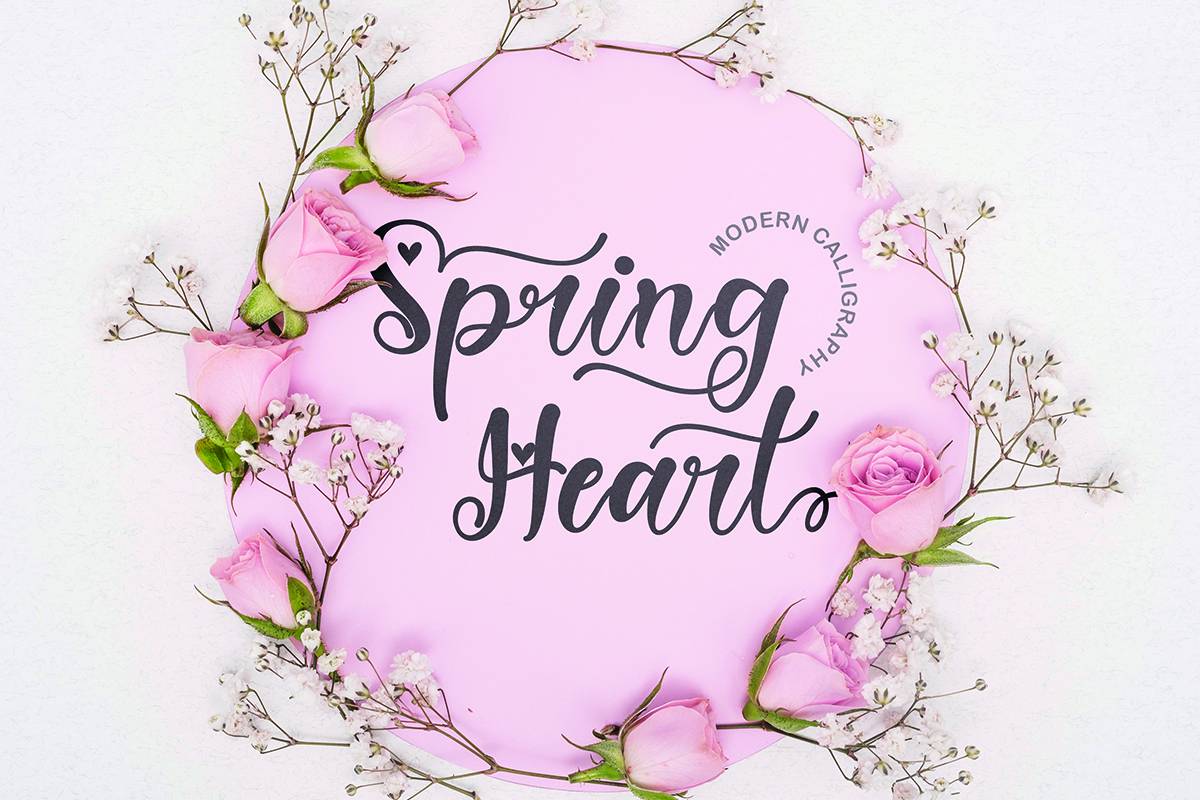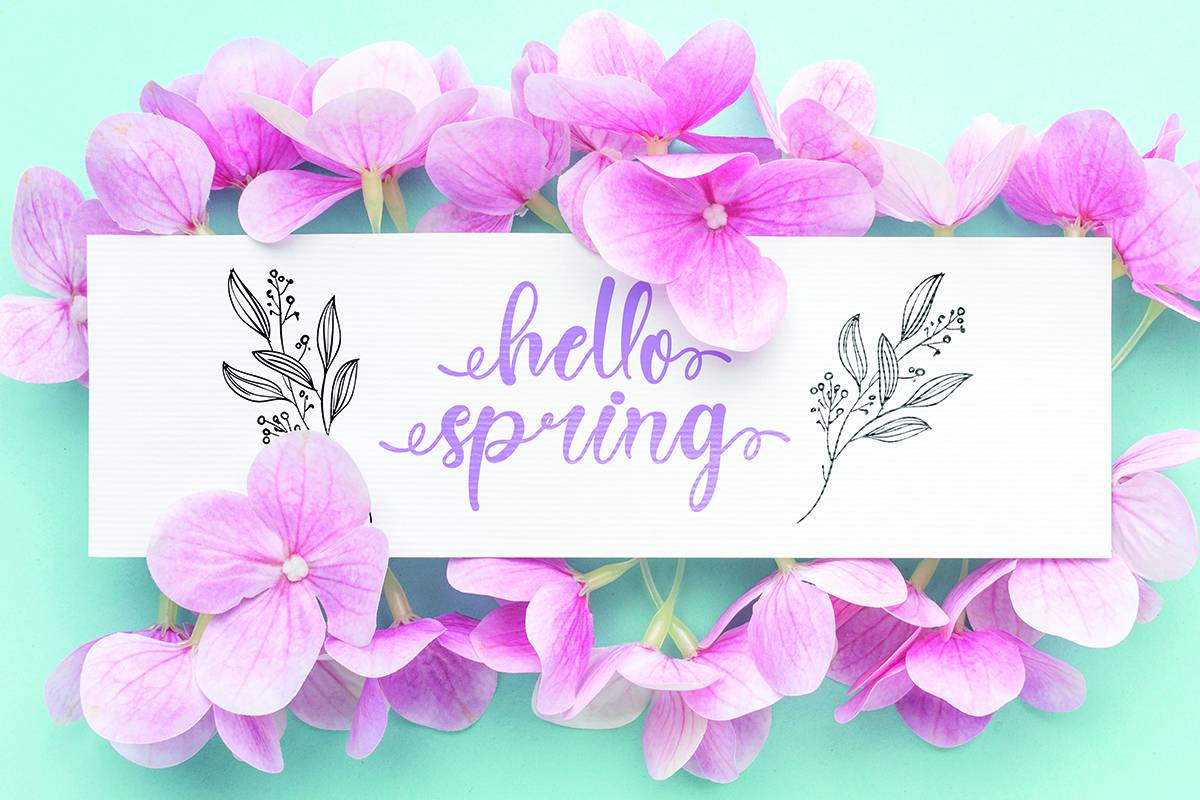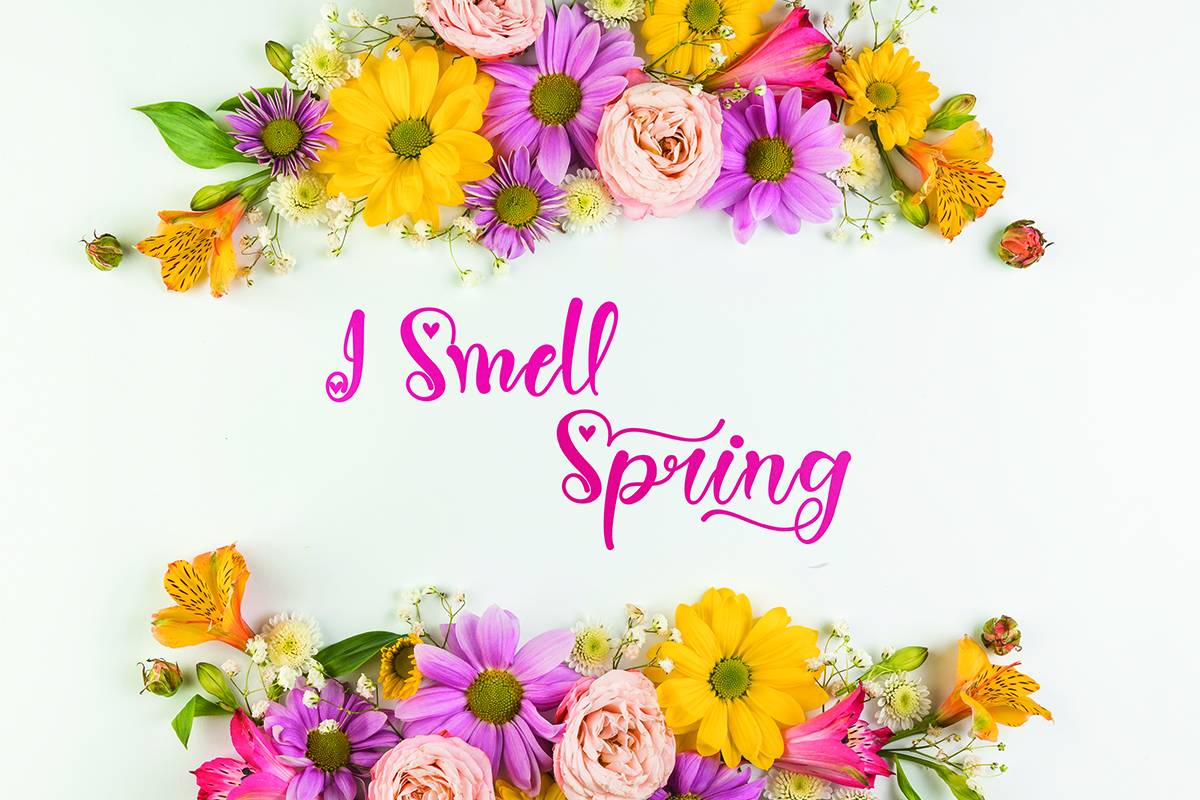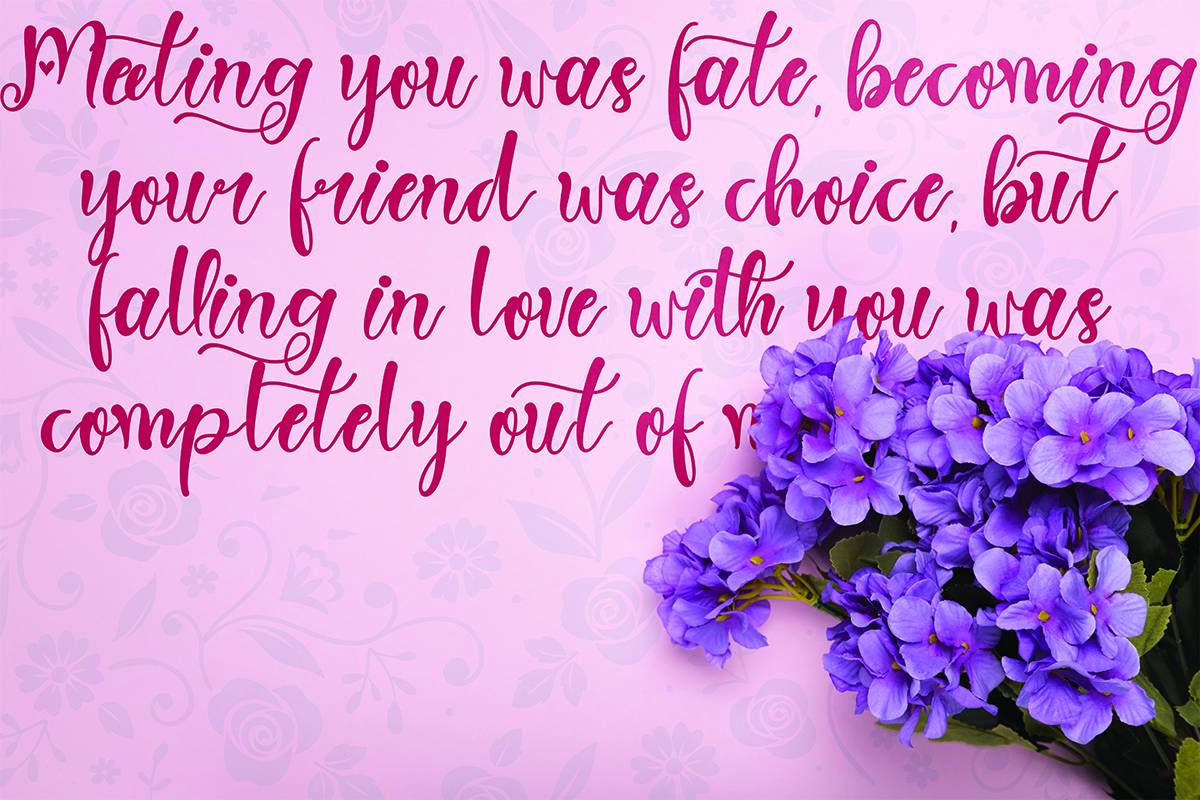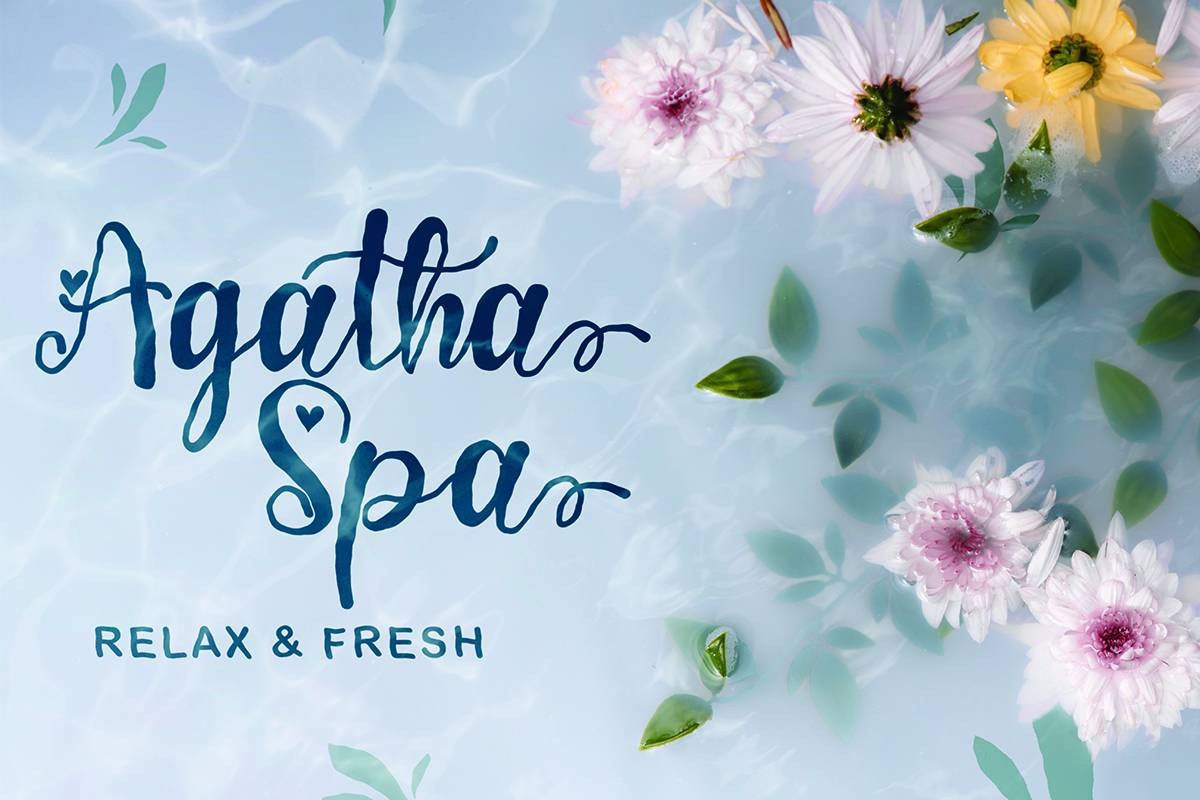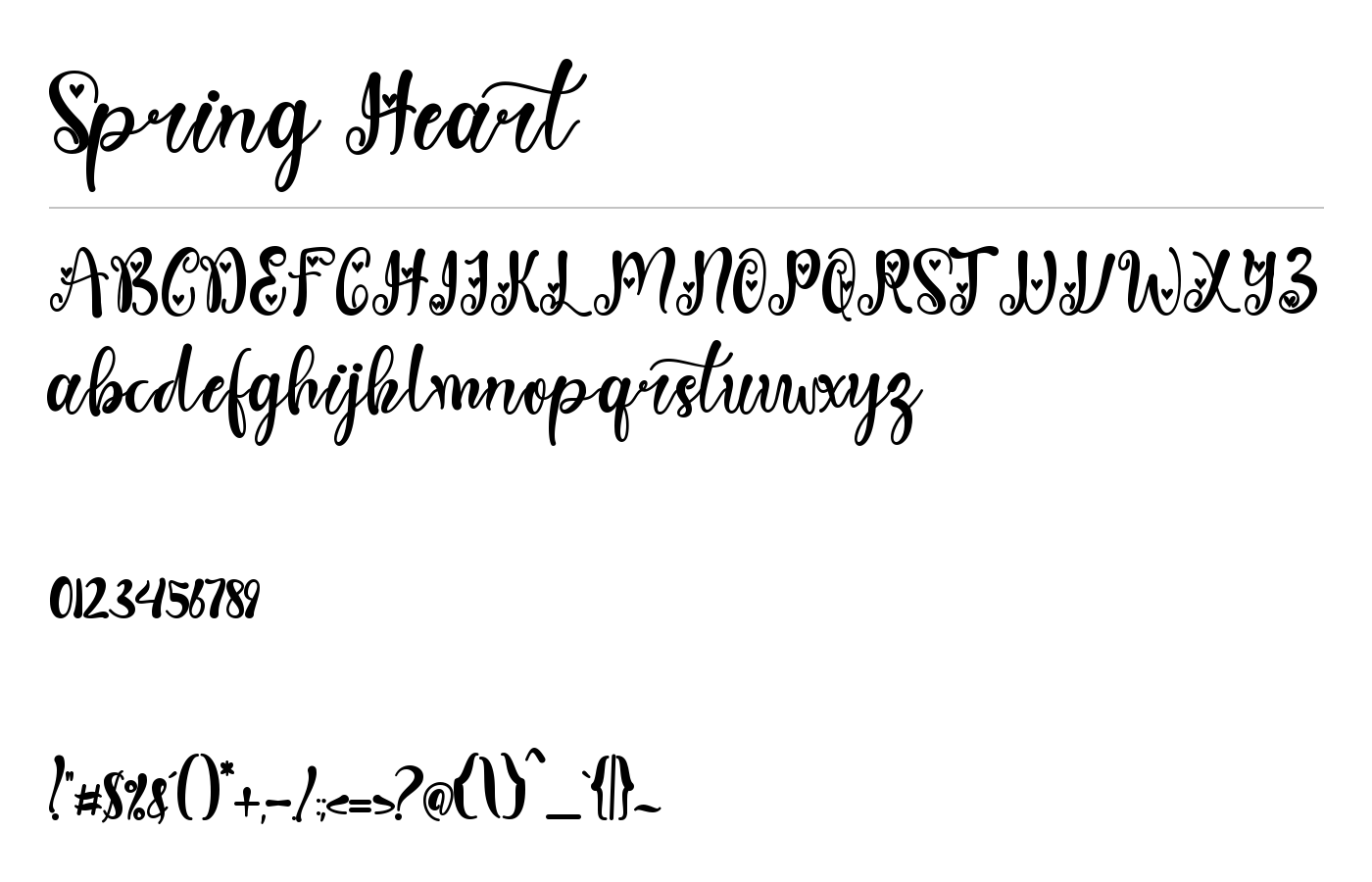
Spring Heart is a lively and charming script font with playful, flowing strokes and cute heart-shaped details embedded in its uppercase letters, adding a whimsical touch. Its medium weight and smooth curves evoke warmth and friendliness, making it perfect for romantic, feminine, or lighthearted branding, invitations, and creative projects where a personal, joyful vibe is desired.
Spring Heart Font
About Spring Heart Font
| Font family | Spring Heart Font |
| Release date | 2021-03-21 |
| Designer | Yogaletter 2021 (Isroni Yoga Prasetya) |